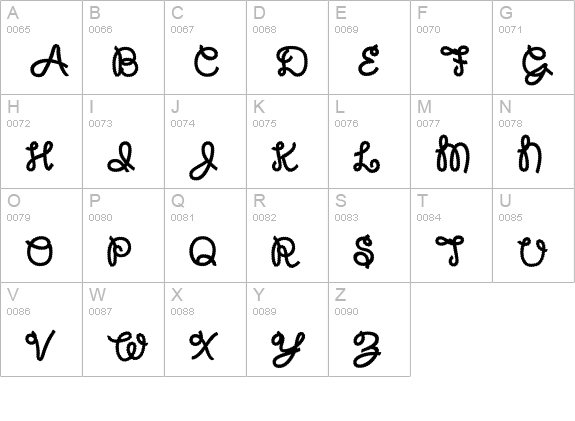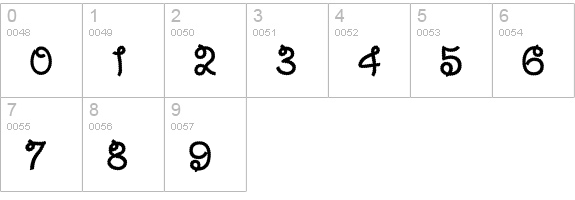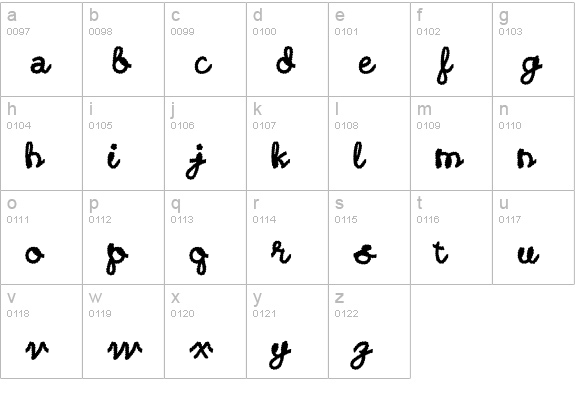
Introducing Rodeo Roundup Fill font - a whimsical and playful typeface perfect for adding a touch of fun to your designs. This unique font features a hand-drawn style with a rounded fill that adds a charming and lively feel. Whether you're working on a project related to cowboys, rodeos, or anything that calls for a touch of Western flair, Rodeo Roundup Fill font is sure to catch the eye and bring a sense of adventure to your design. And the best part? Rodeo Roundup Fill font is completely free to download at FontsMarket.com! Don't miss out on this fantastic opportunity to add a touch of personality and creativity to your projects with this delightful font. Download it now and let your imagination run wild with Rodeo Roundup Fill font.